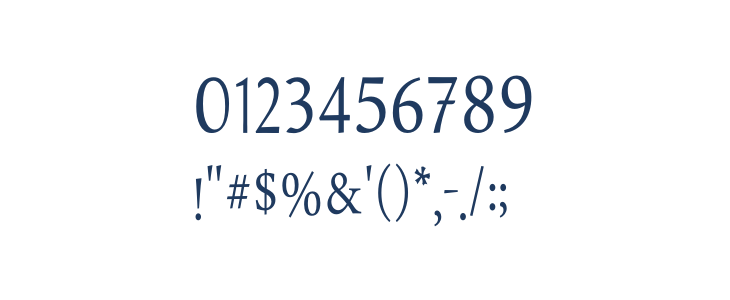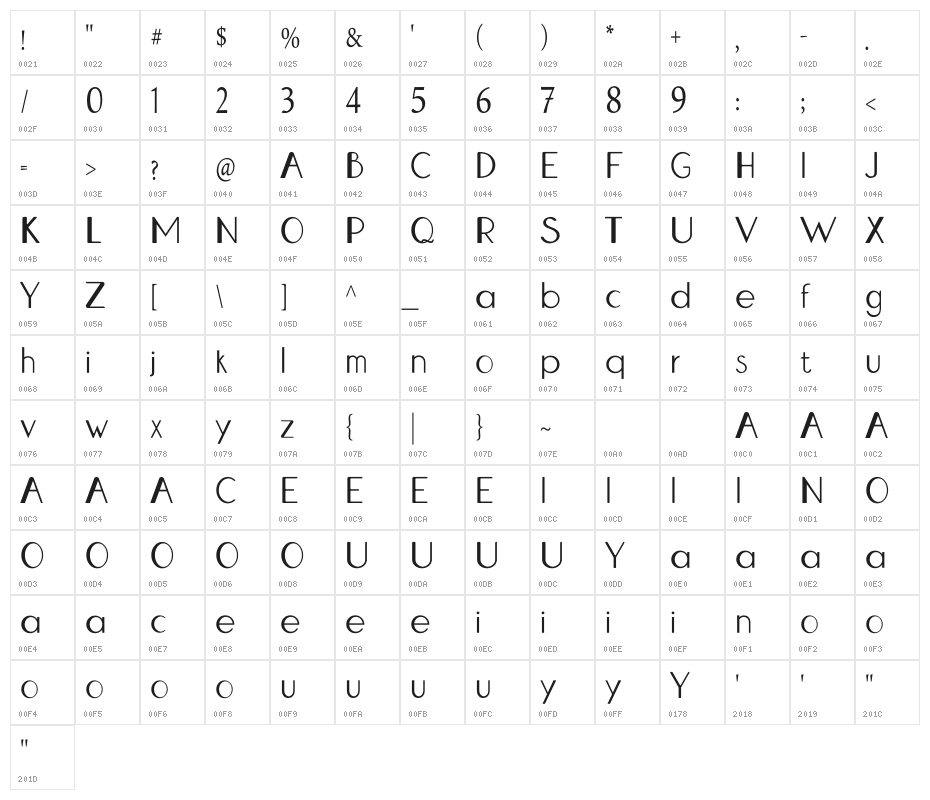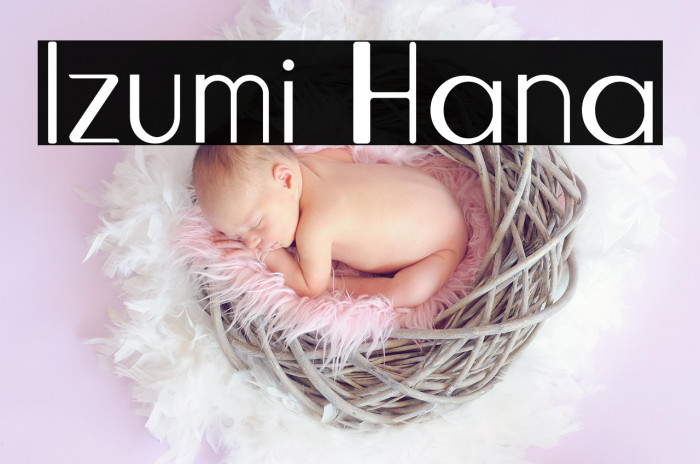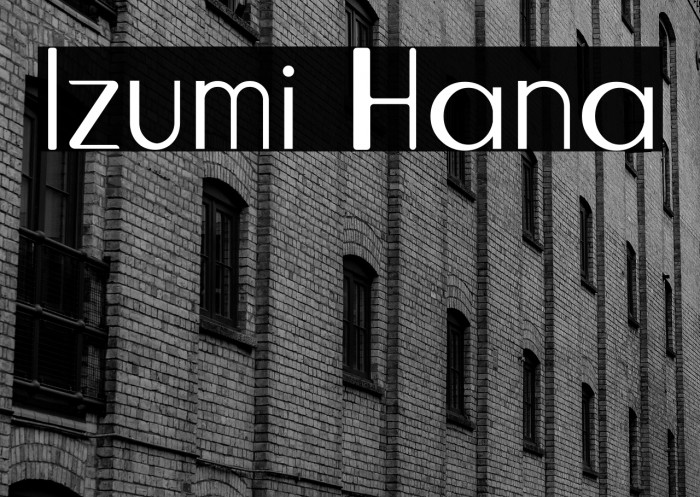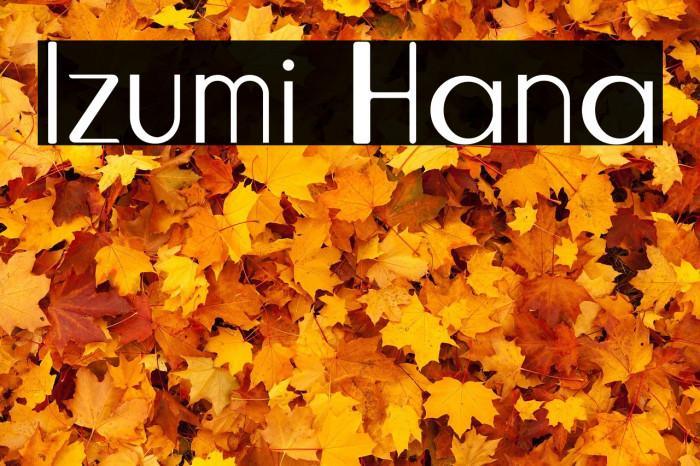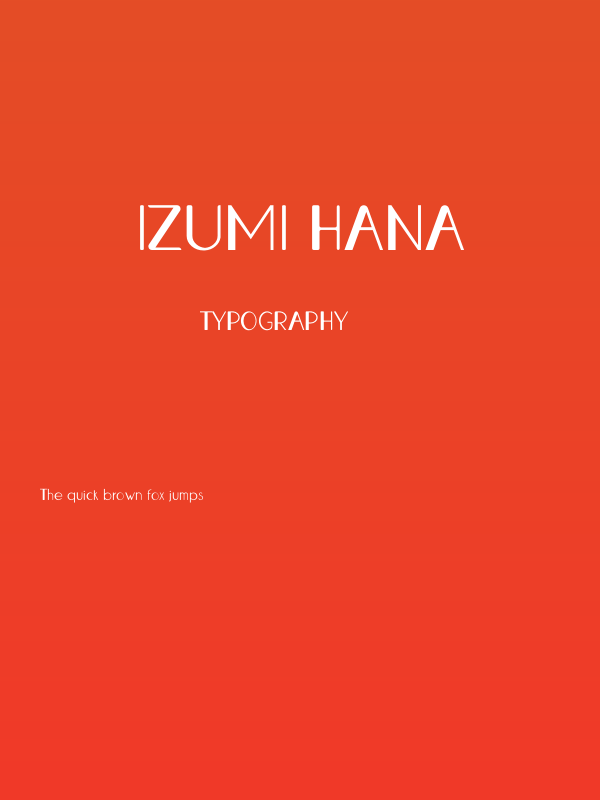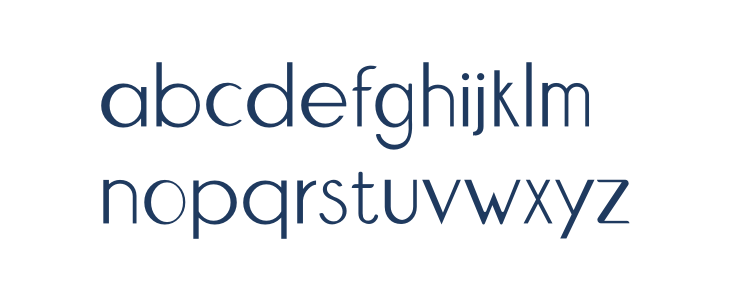
Izumi Hana Font
Izumi Hana Description
This font features a clean and modern design with a geometric influence. The uppercase letters are bold and striking, while the lowercase letters maintain a consistent and harmonious flow. The numerals are clear and easy to read, making them suitable for a variety of applications. The special characters are well-integrated, complementing the overall aesthetic. The font's style is versatile, making it suitable for both digital and print media. Its balanced proportions and smooth curves give it a professional yet approachable appearance, ideal for branding, advertising, and editorial design.
| Proposed Projects | Ideal for branding, advertising, editorial design, and digital media. |